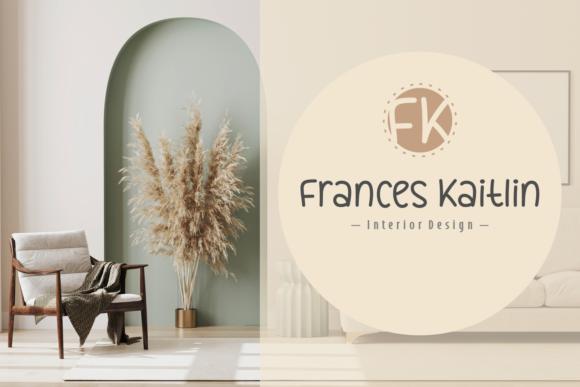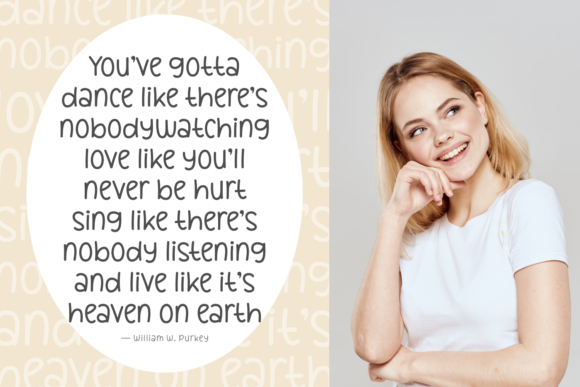
You Never Lose by Loving Font
You Never Lose by Loving Font is a free, unique, and cool font. This font is FREE to Download and suitable for designs such as t-shirts, sportswear, posters, logos, advertisements, clothing, and more.
You Never Lose by Loving Font is a free, unique, and cool font. This font is FREE to Download and suitable for designs such as t-shirts, sportswear, posters, logos, advertisements, clothing, and more. Whatever the topic, this font will be a great asset to your font collection, as it has the potential to enhance any creation.